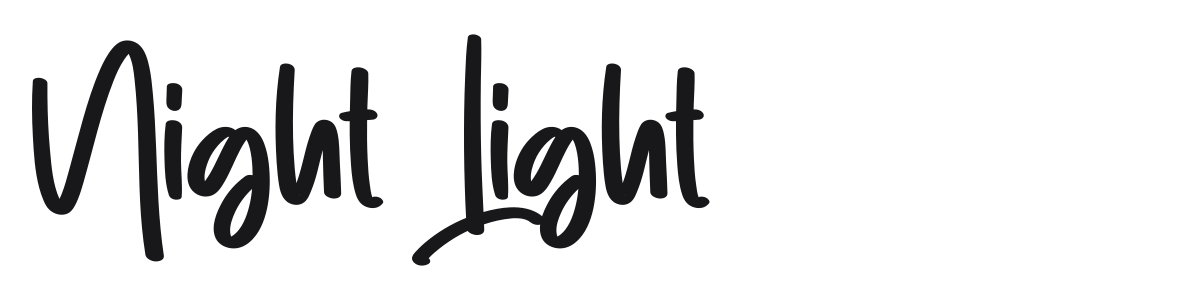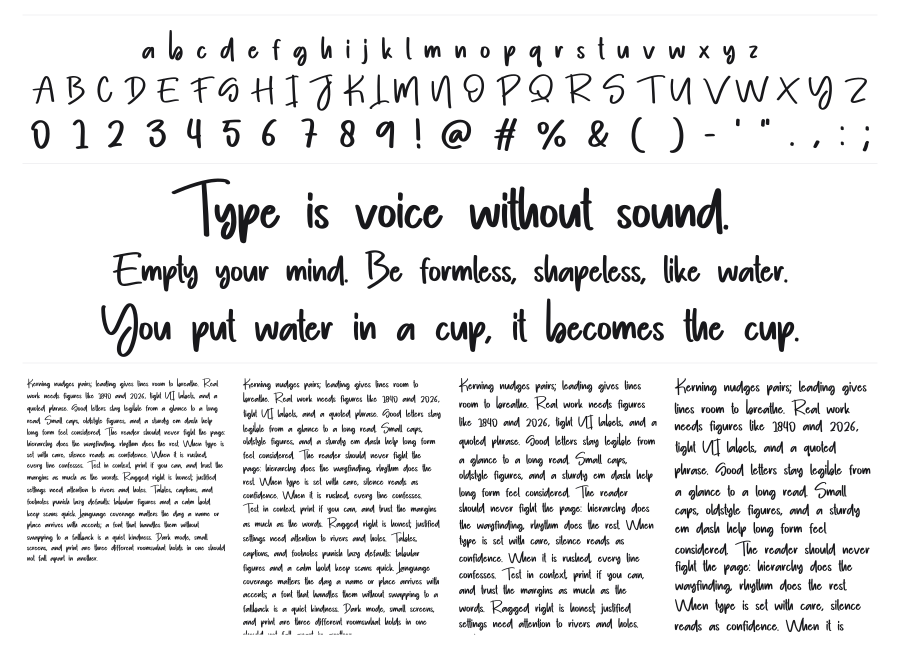
Night Light
Night Light is a bold casual script that channels the look of confident marker handwriting with thick rounded strokes and smooth letter connections. The low stroke contrast and generous curves give it a laid-back warmth that works well for branding, packaging, and social content. It reads as informal and inviting without feeling childish.